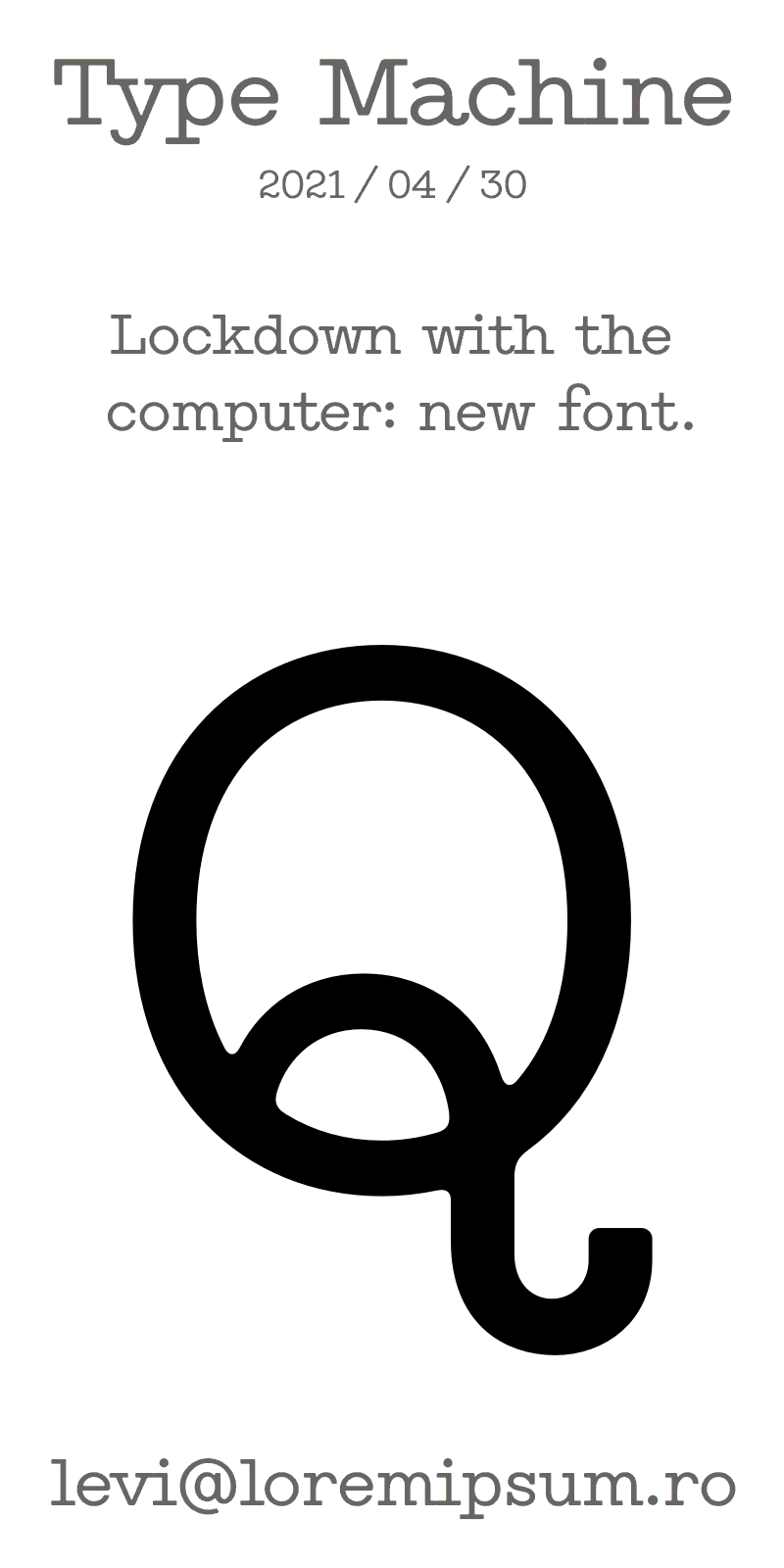
Font name: | Type Machine |
Author: | Levi Szekeres |
Note by Levi Szekeres | |
Despite the fact that typewriter fonts are usually monospaced (for logical reasons), the Regular version is built with variable widths, the same as conventional fonts. The font is not necessarily meant to be a comeback or a nostalgic work, it is a modern interpretation of a classic. This way contemporary lines and constructions can be included easier, without creating an anachronistic design. Because of that a cloth or a paper texture is not a priority, in this case the font is more design than art. To make it as genuine as possible, a rough look would probably need a typewriter sound attached to it. |